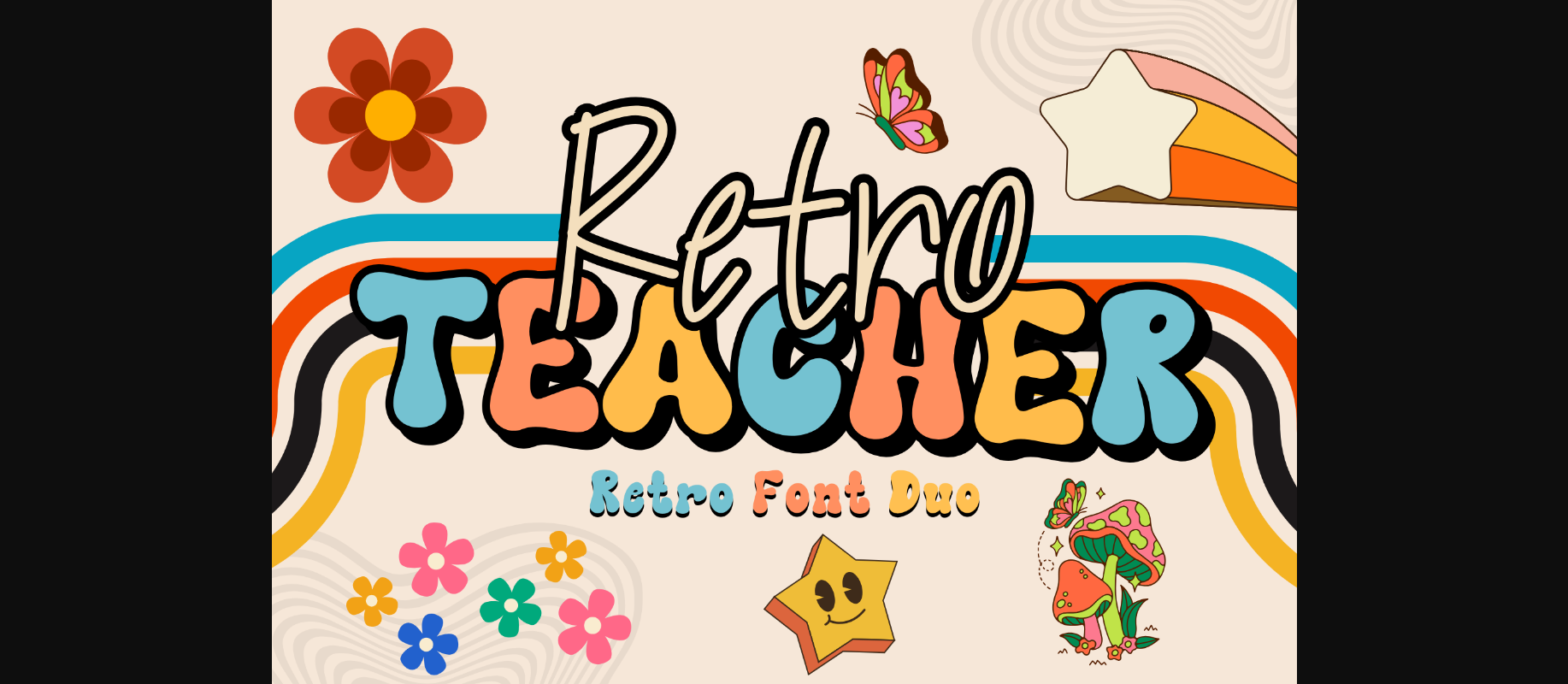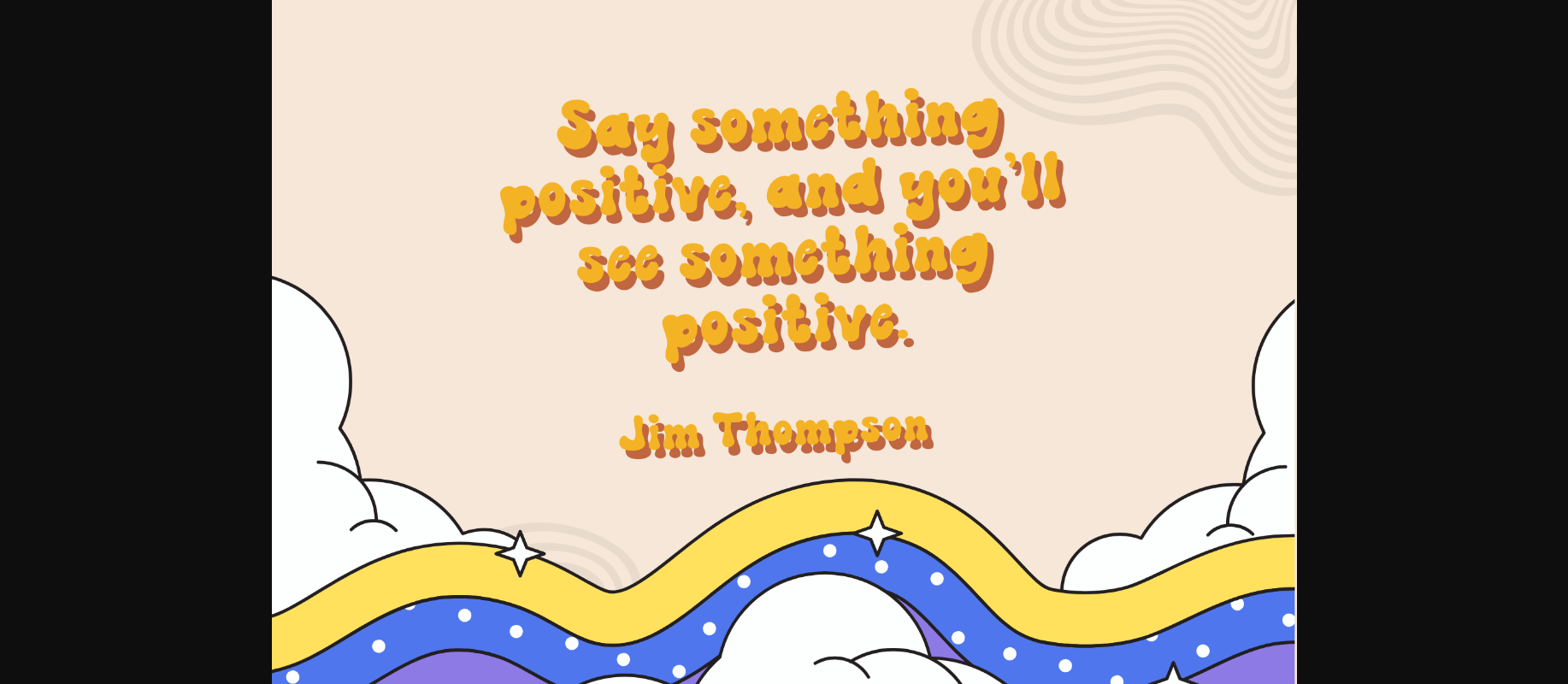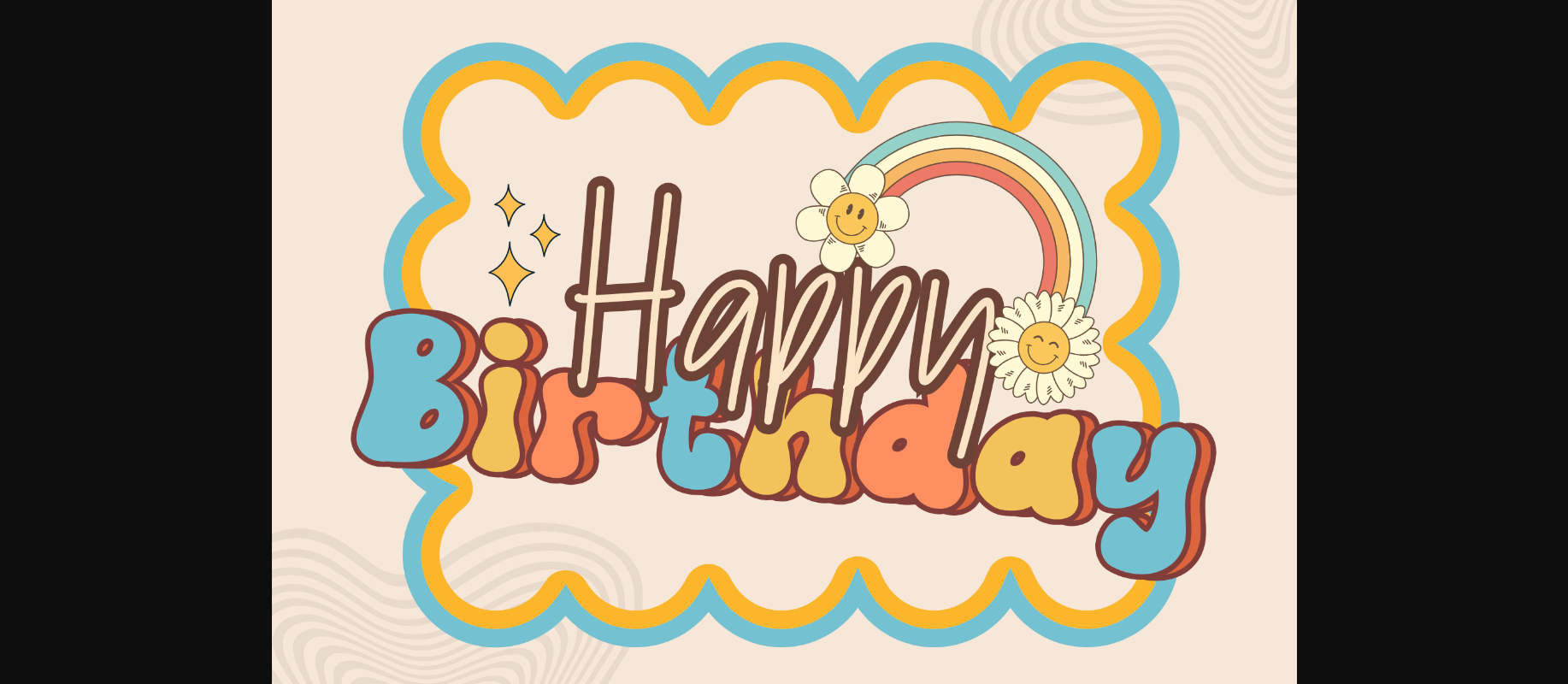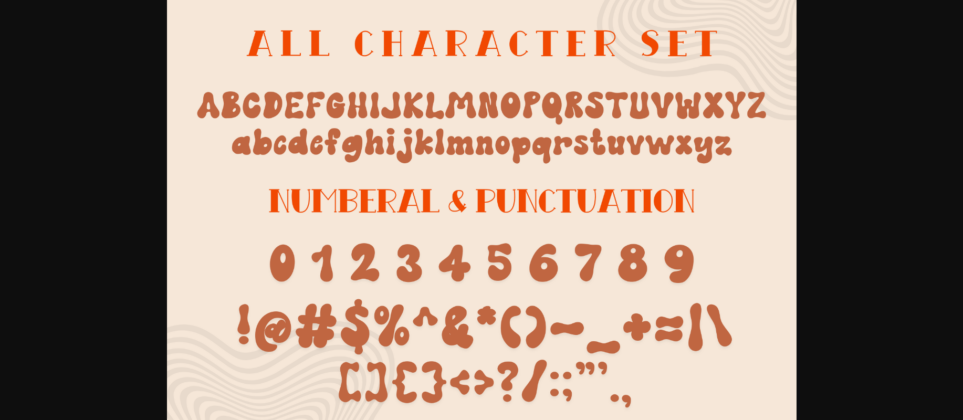
About Retro Teacher Font
Retro Teacher is a stylish retro duo font, combining a display and handwritten typeface that exudes a cool and groovy aesthetic. Ideal for all your hippie-inspired designs, It embodies playfulness and authenticity and is the perfect choice for all your favorite projects, or even for blog posts, logos, branding, ads, invitations, greeting cards, planners, photo albums, decorations, and much more. Add it to any of your designs, and enjoy the results!